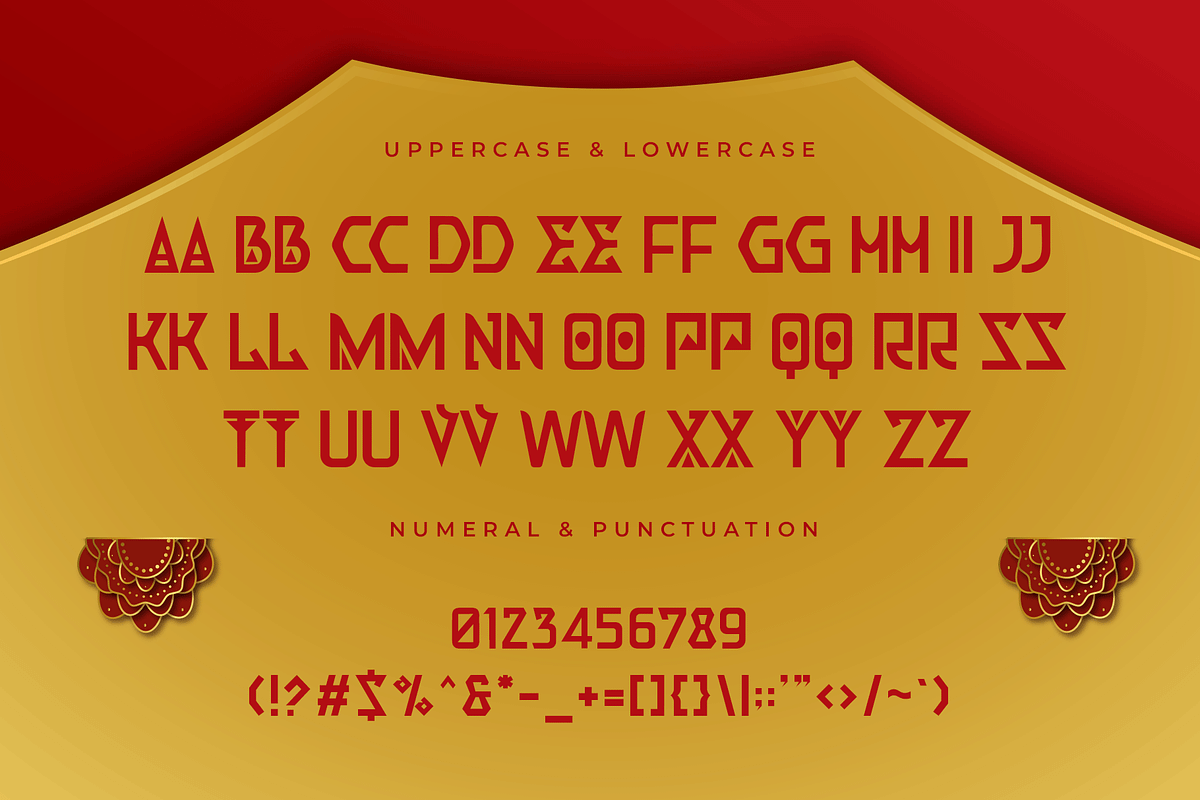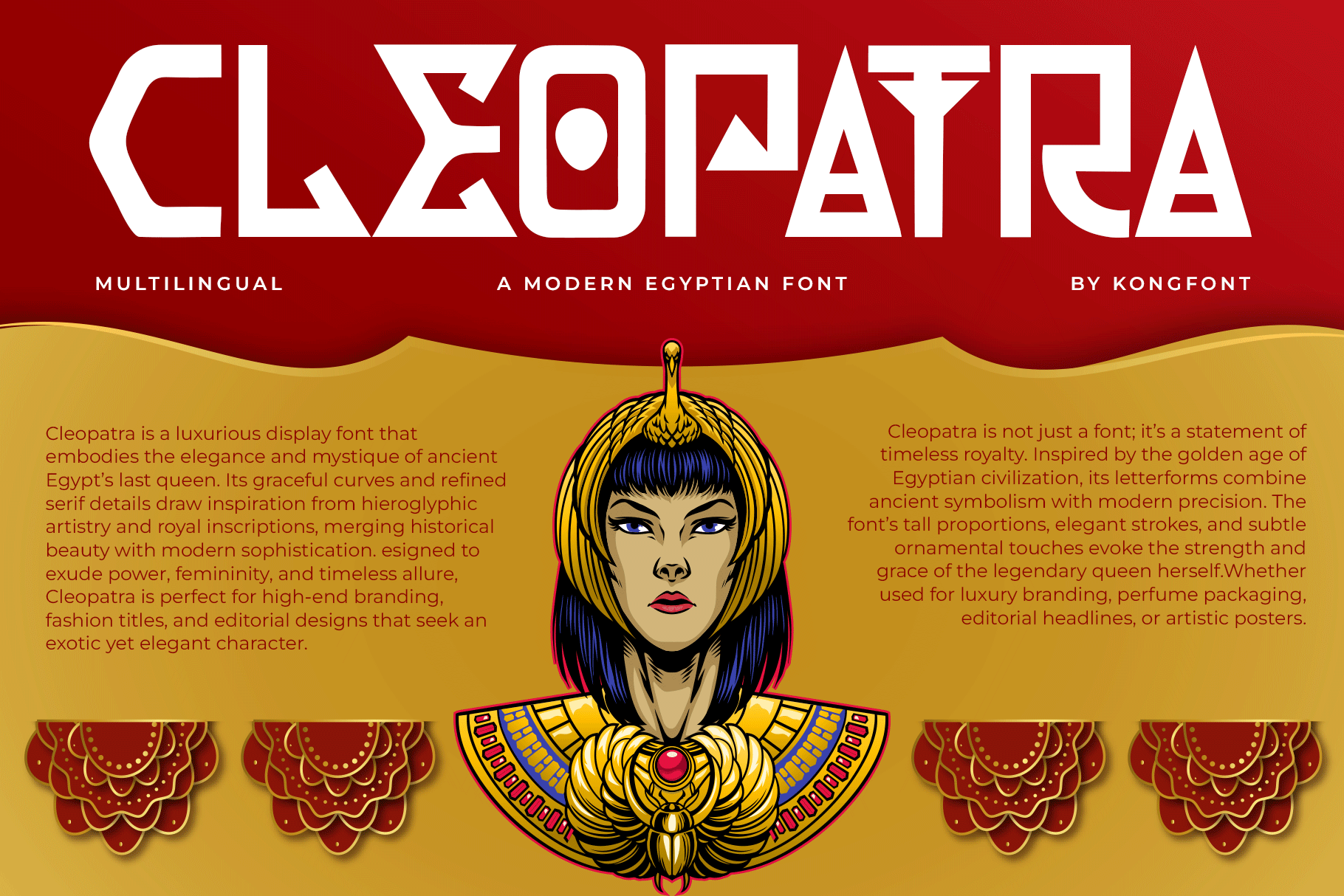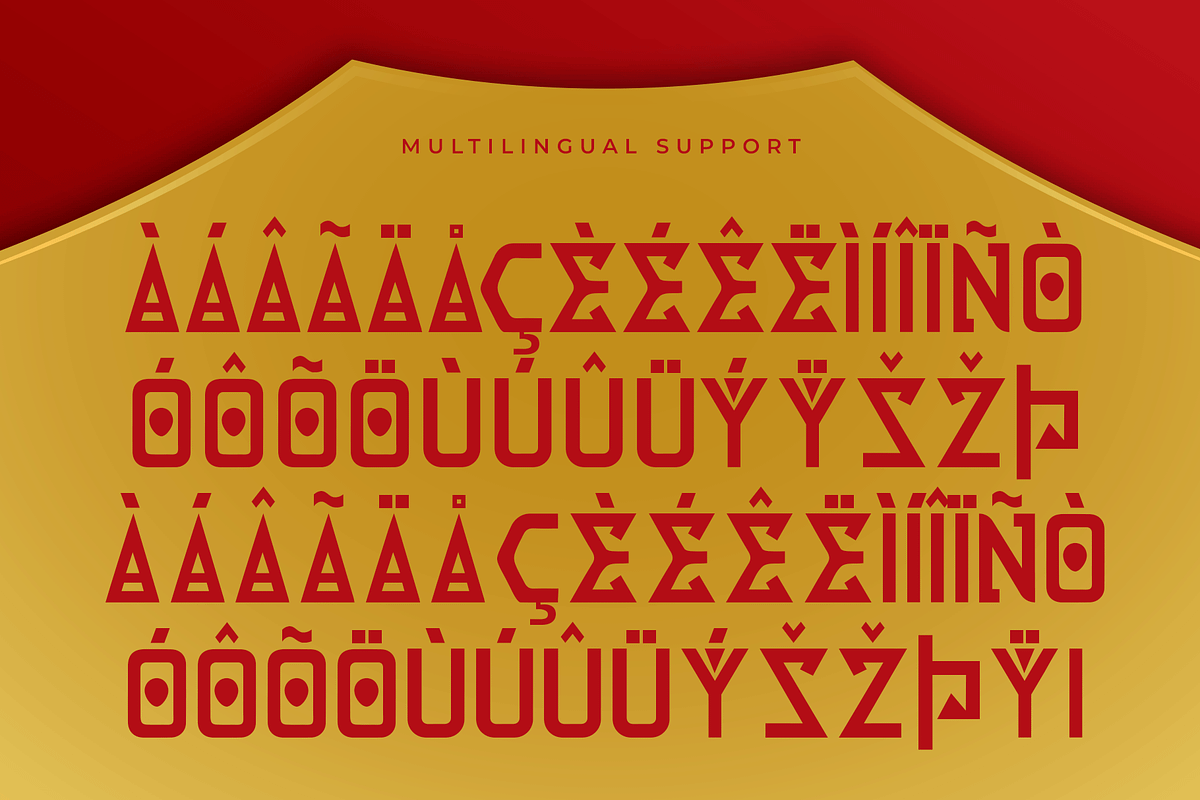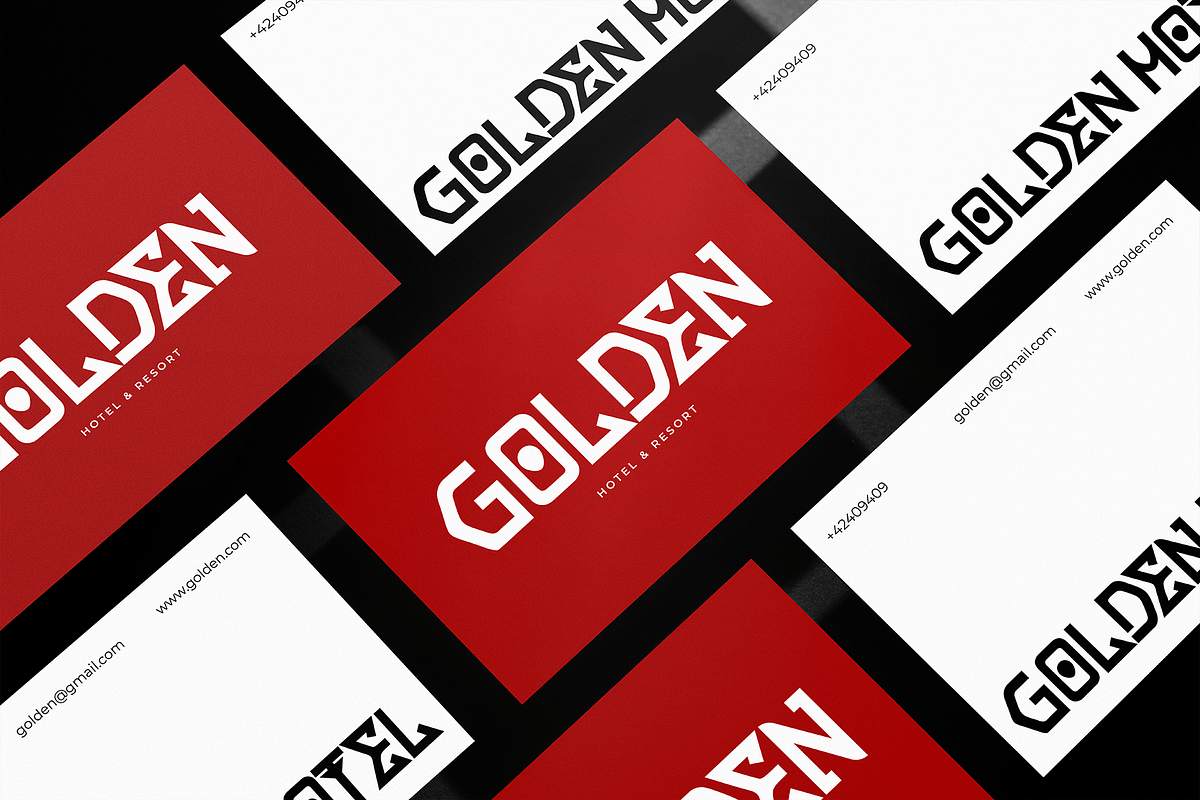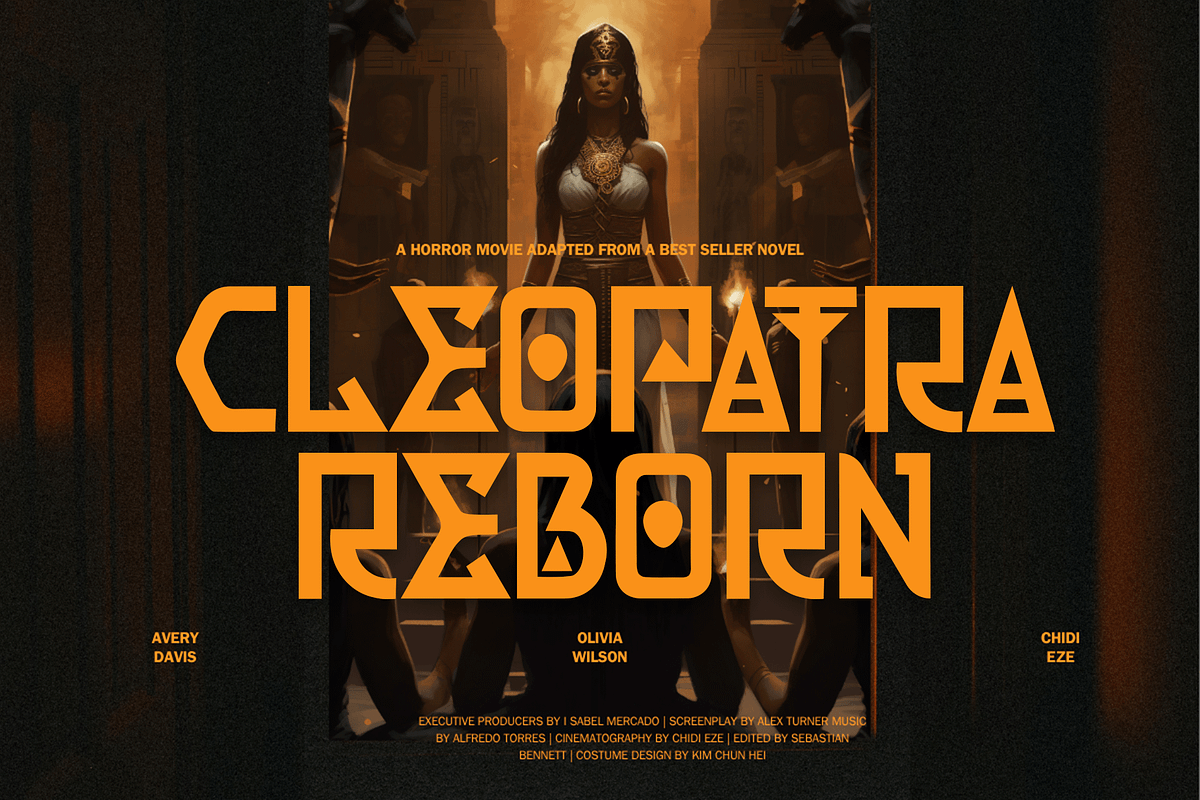
Cleopatra – Modern Egyptian Font
Introducing Cleopatra, a modern Egyptian font inspired by the timeless beauty and grandeur of ancient Egypt. This typeface captures the essence of royal elegance through its bold, symmetrical letterforms and refined details, creating a perfect harmony between history and modern minimalism.
Cleopatra is ideal for designers who want to evoke mystery, luxury, and power in their projects. Its clean yet decorative shapes make it perfect for branding, packaging, posters, fashion editorials, and cultural designs. Every letter carries a regal aura, reminiscent of hieroglyphic artistry but refined for contemporary aesthetics.
From logos that command attention to titles that tell a story of legacy, Cleopatra transforms any design into a work of timeless sophistication.